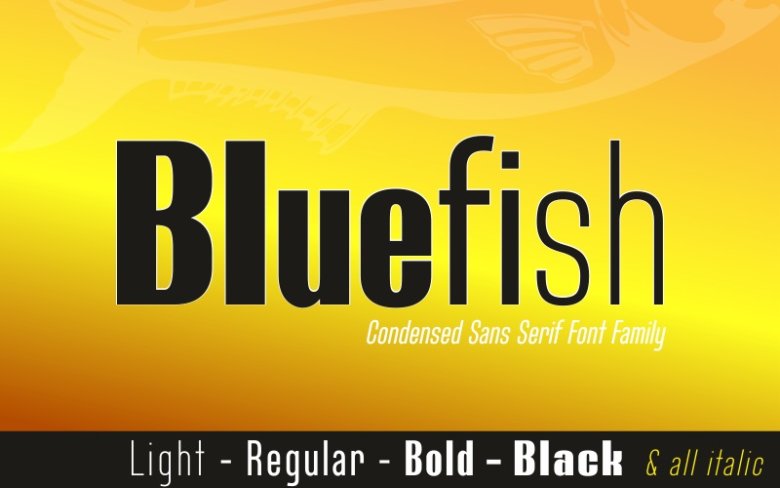
Bluefish Font Family
Bluefish Font
Bluefish is a high quality Sans Serif font that is designed by Studio Typo and is available for free download and personal use. The free version provides all uppercase and lowercase letters and a few special characters too.
Bluefish Sans Serif Font Family